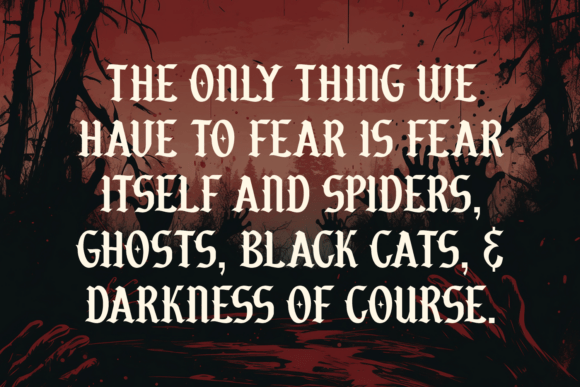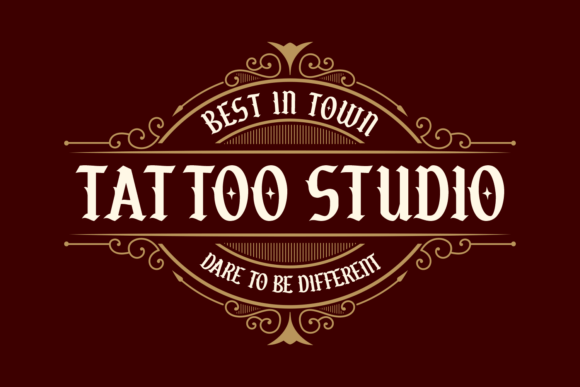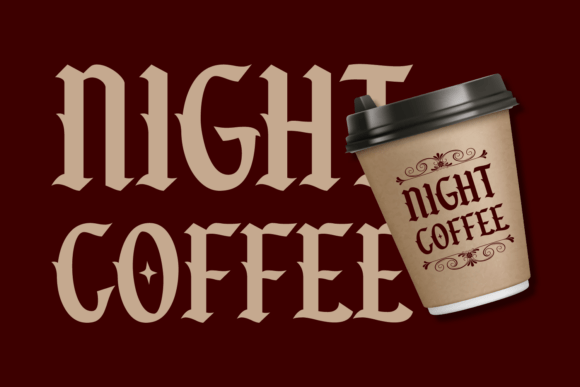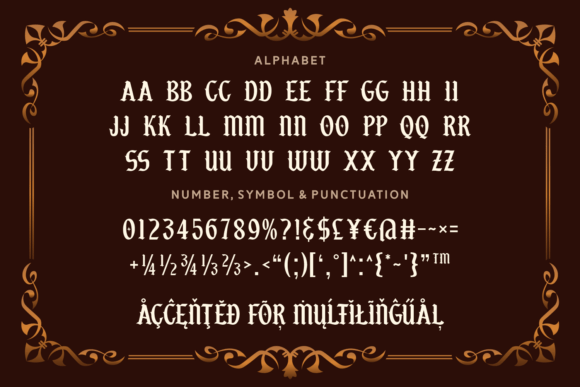
Introduction to Scary Dragon Font
Do you remember the thrill of finding that perfect font for a creative project? The rush of excitement as you envision your design come to life? That’s exactly what happened to many designers when they stumbled upon the Scary Dragon Font. This striking blackletter typeface has been making waves in the design community with its bold, off-white letters set against a deep red background, all enclosed in an ornate golden frame featuring East Asian motifs and intricate dragon illustrations.
The Scary Dragon Font is more than just a design resource – it’s a game-changer for designers looking to add a touch of mythological power to their work. With its high-quality design and transparent background, this font is perfect for creatives who want to elevate their projects without the hassle of complicated design elements.
Key Features of Scary Dragon Font
- High-quality design with a unique blend of scary and dragon elements, perfect for creative projects.
- Perfect for horror-themed, fantasy, or adventure-related creative projects, such as video games, movies, or book covers.
Honest Review: Scary Dragon Font
I recently stumbled upon the Scary Dragon Font while searching for design resources to spice up a creative project. As a designer, I’m always on the lookout for high-quality fonts that can elevate my work. In this review, I’ll share my honest thoughts on this font.
- The font has a unique and bold design that’s perfect for horror-themed projects or anything that requires a touch of edginess.
- The font is limited to uppercase letters, which might not be ideal for projects that require both uppercase and lowercase letters.
- The font’s design might not be suitable for all types of projects, such as corporate or formal designs.
Overall, the Scary Dragon Font is a great addition to any designer’s toolkit, especially for creative projects that require a bold and edgy touch. While it has some limitations, the font’s unique design and high-quality make it a great resource to have on hand.
Scary Dragon Font
Tips for Getting the Most Out of Scary Dragon Font
For the best results, use the Scary Dragon Font on a high-quality background image or design element. This will help the font stand out and add to the overall impact of your design. Additionally, consider combining the font with other design elements, such as graphics or images, to create a unique and engaging visual effect.
The Scary Dragon Font is a versatile design resource that can be used in a variety of creative projects, including graphic design, web design, and print design. It’s a great choice for projects that require a bold, eye-catching font, such as posters, flyers, and business cards.